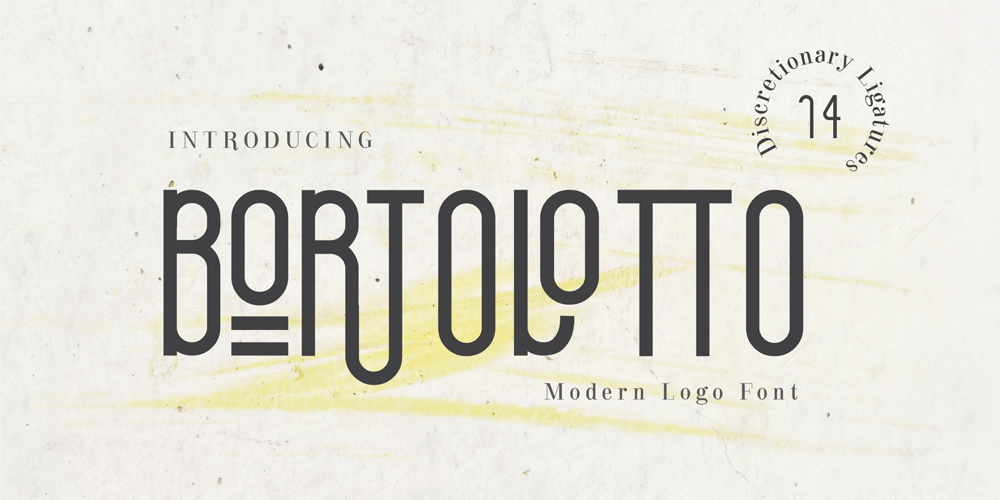
Bortolotto
Bortolotto font
Bortolotto Font Family was designed by Edy Suryadi and published by Edcreative. Bortolotto contains 1 styles and family package options. Bortolotto is a pretty, elegant, clean and vintage-style fontcompleted with several series of ligatures to make this font more attractive to complement your design.This font is perfect for wedding cards, T-shirts, branding logos, posters, mug designs and more